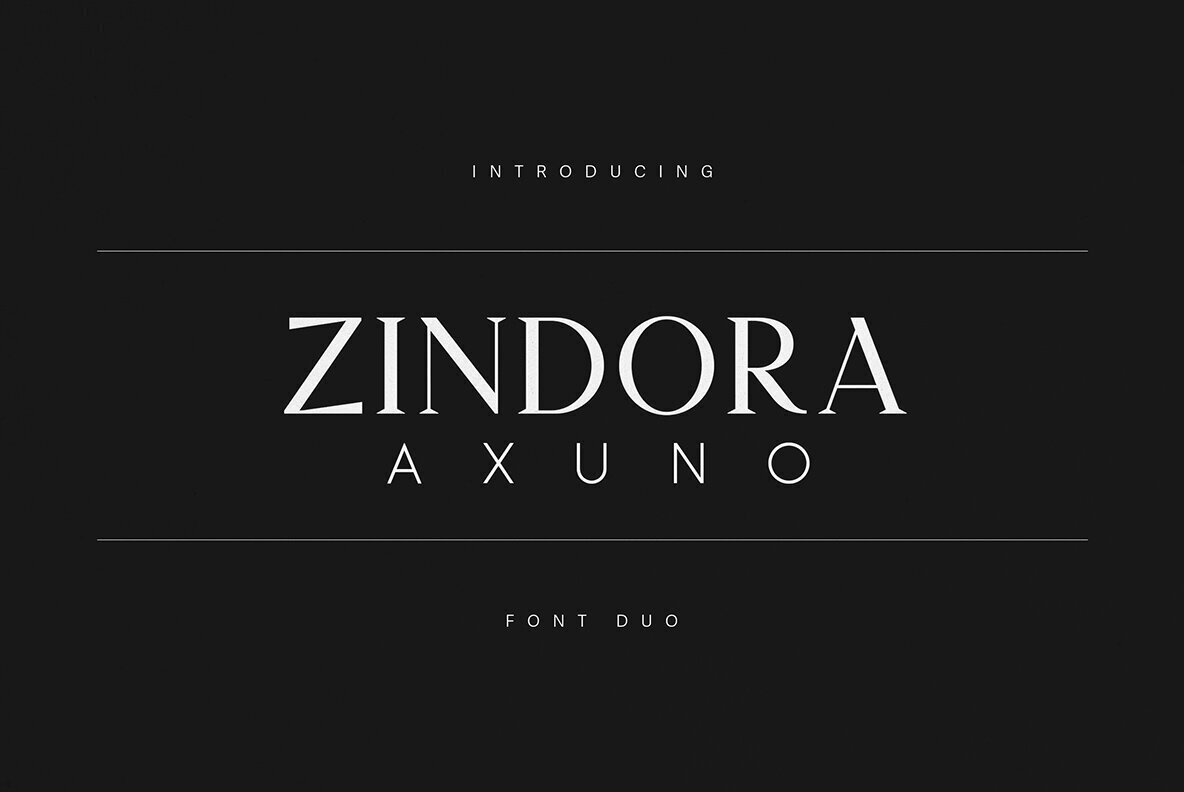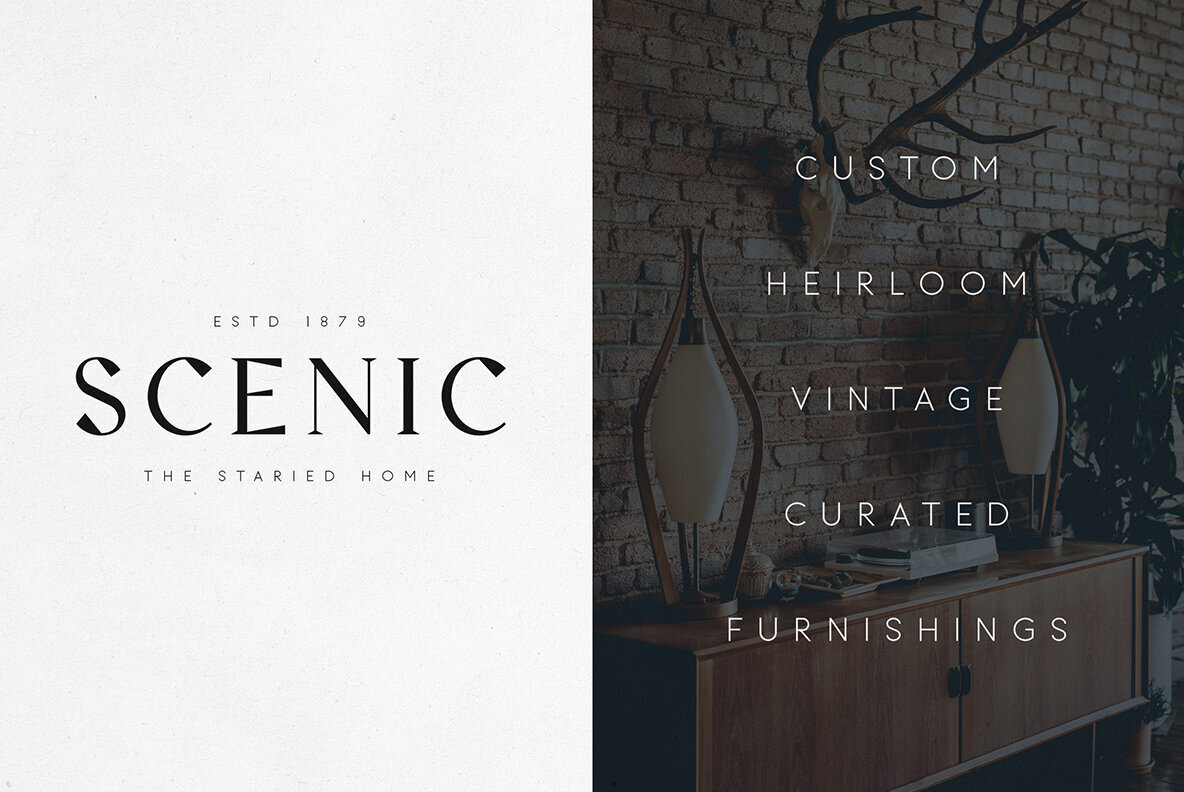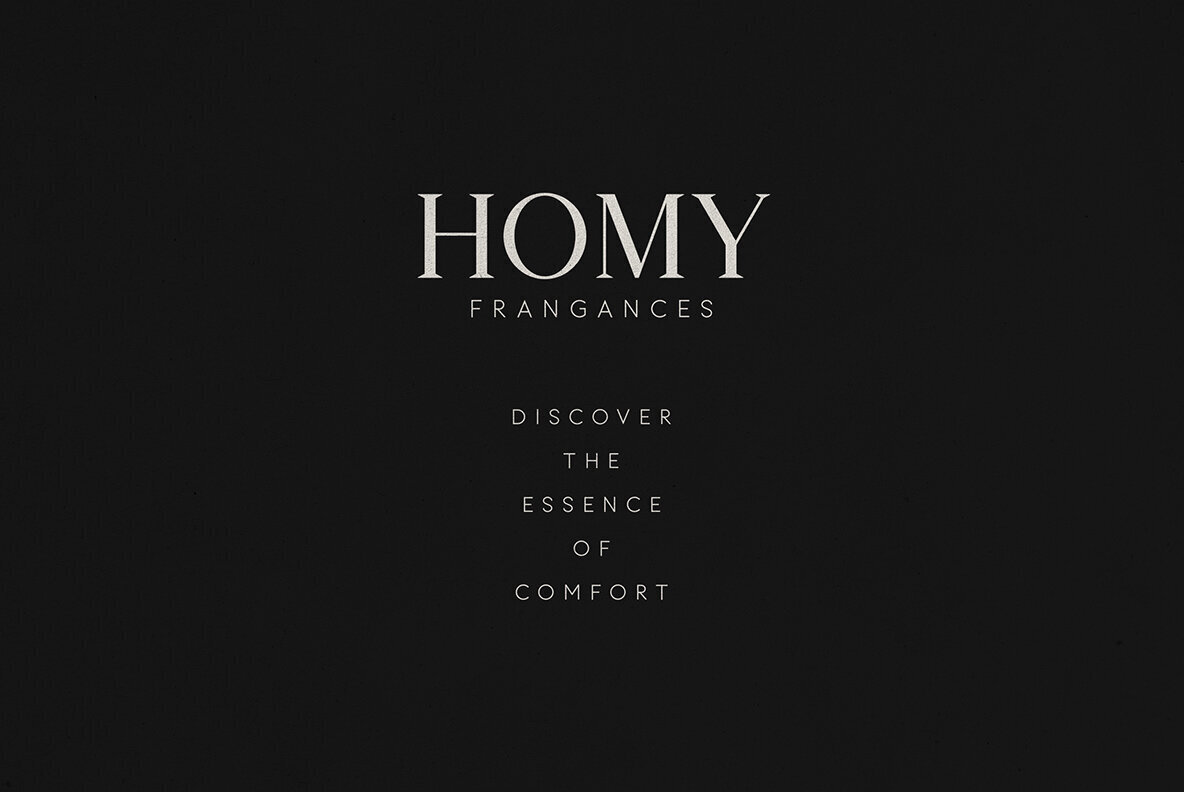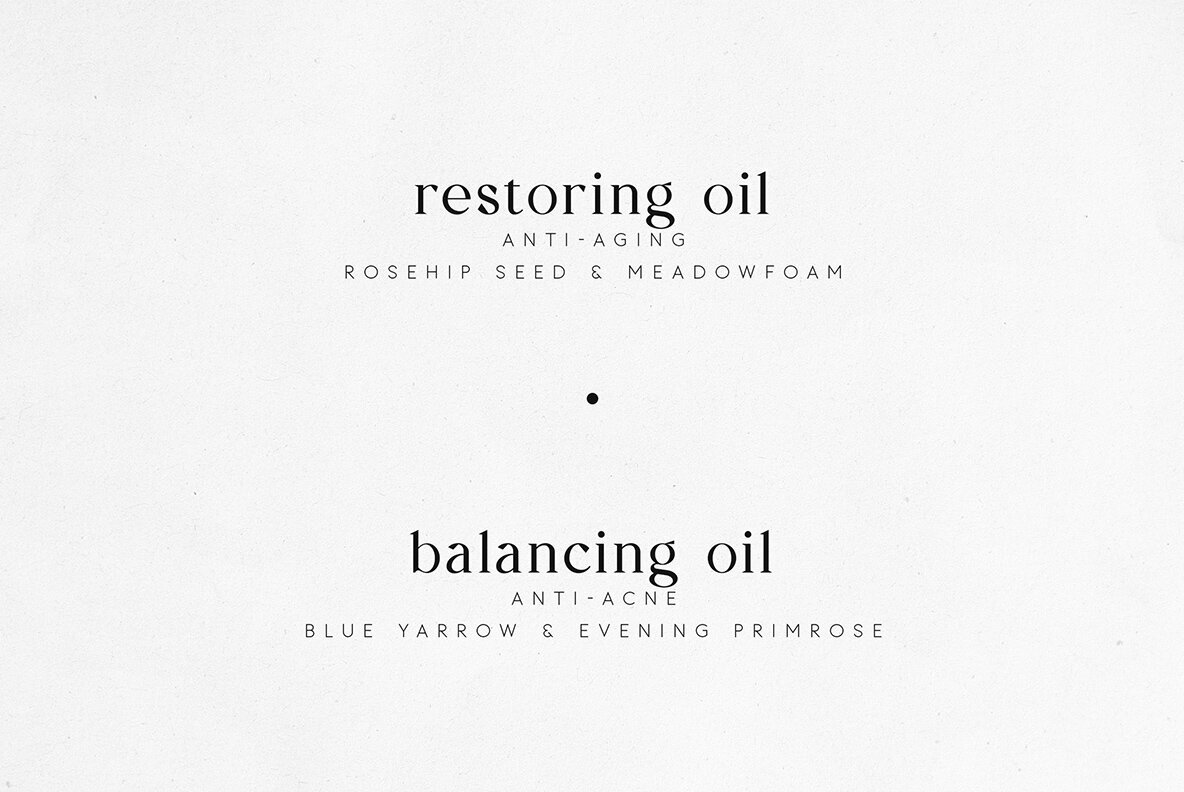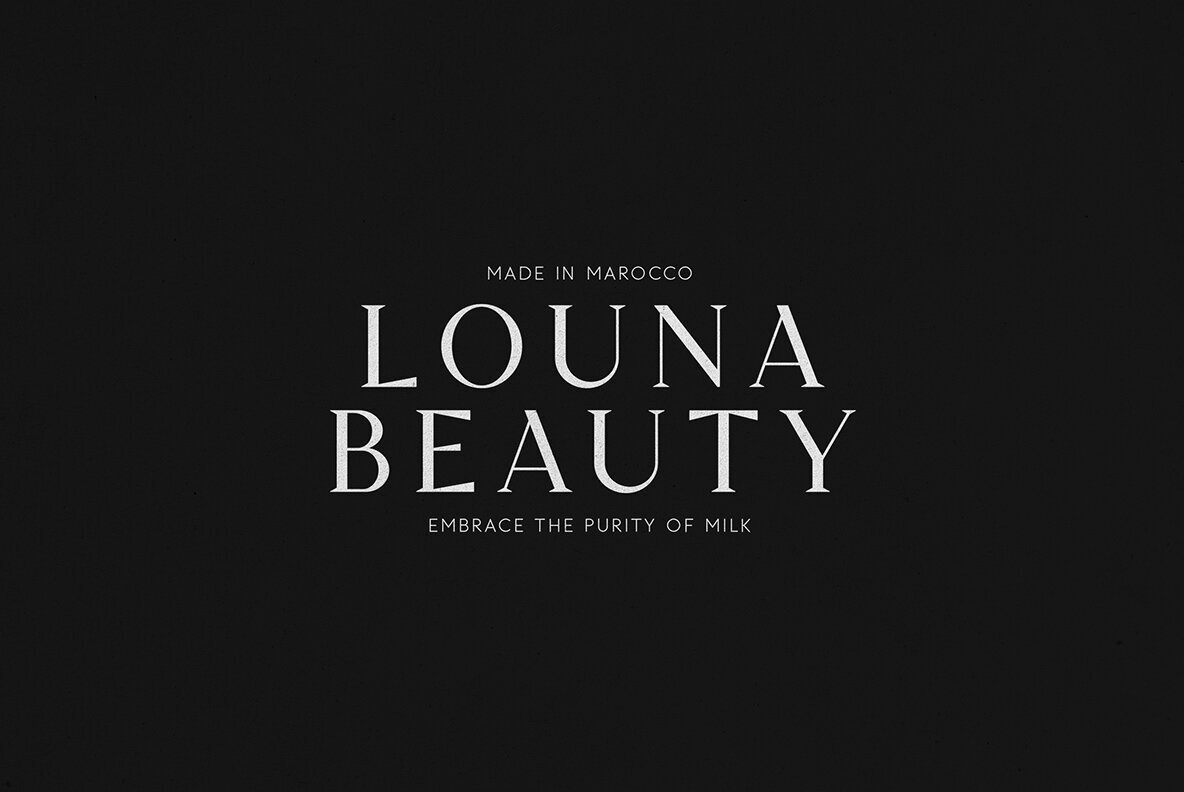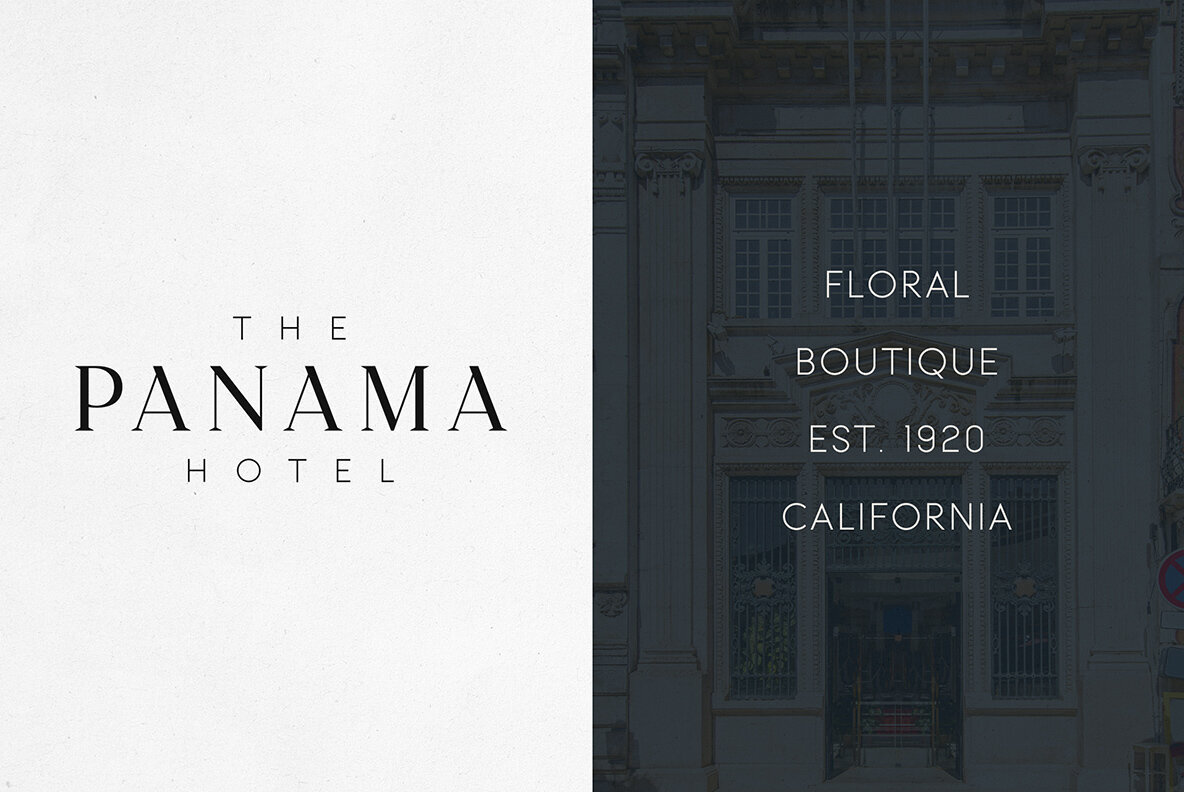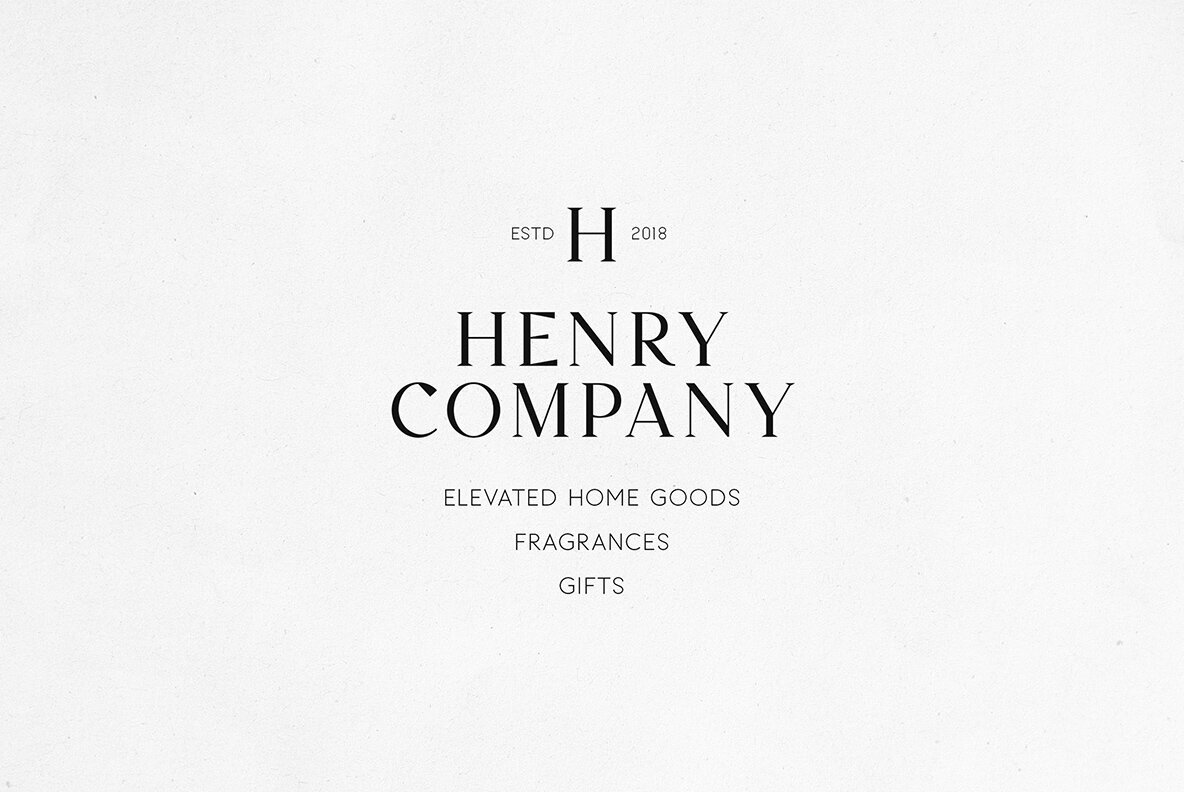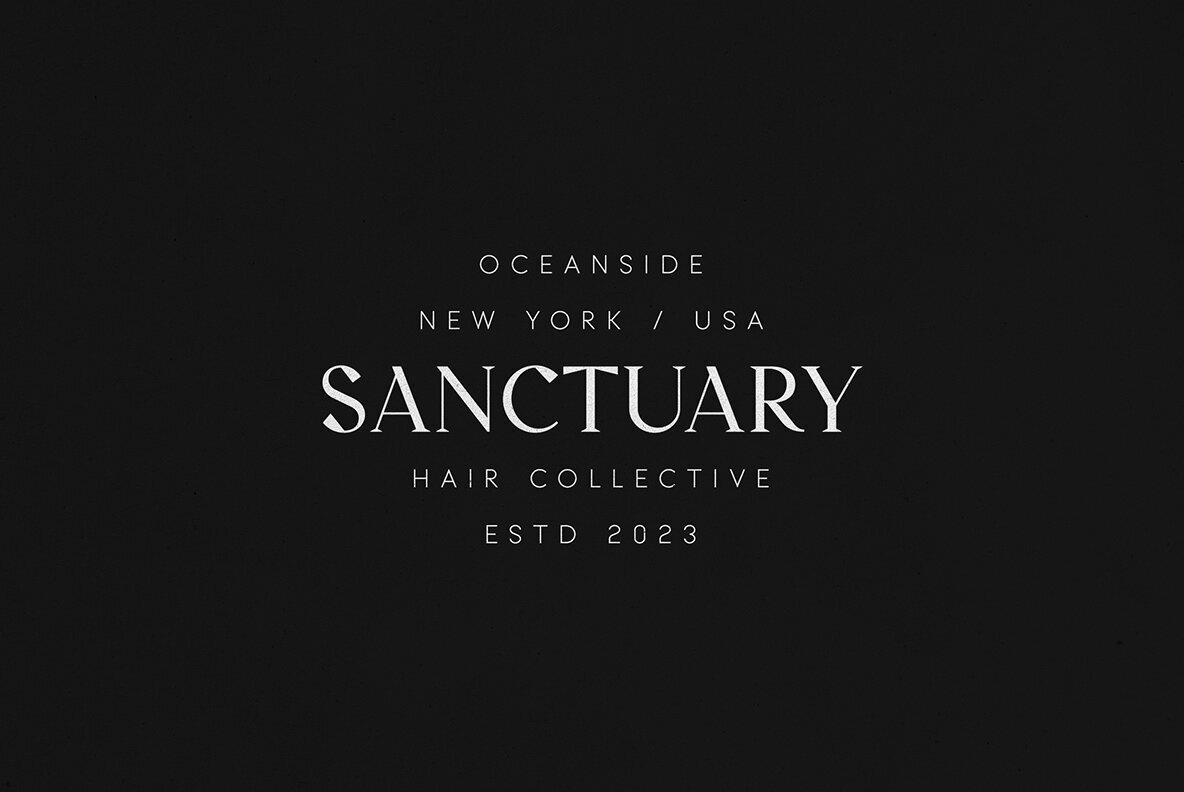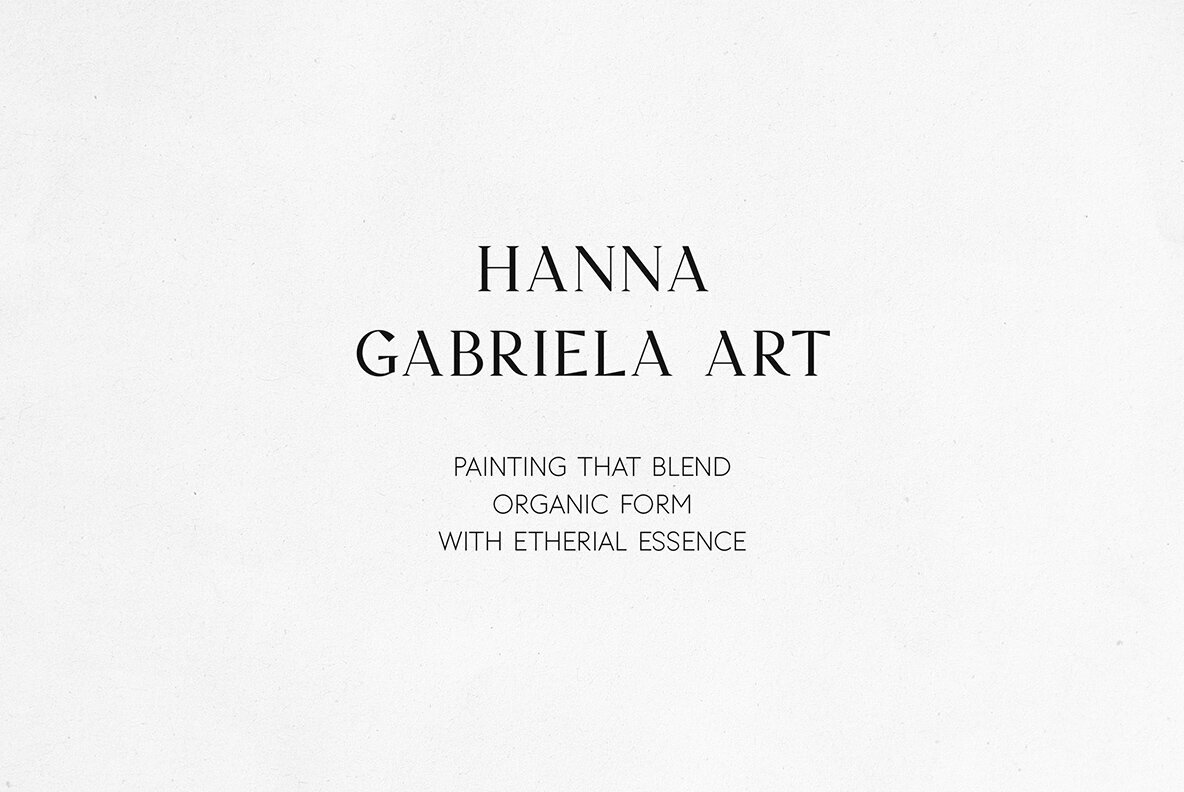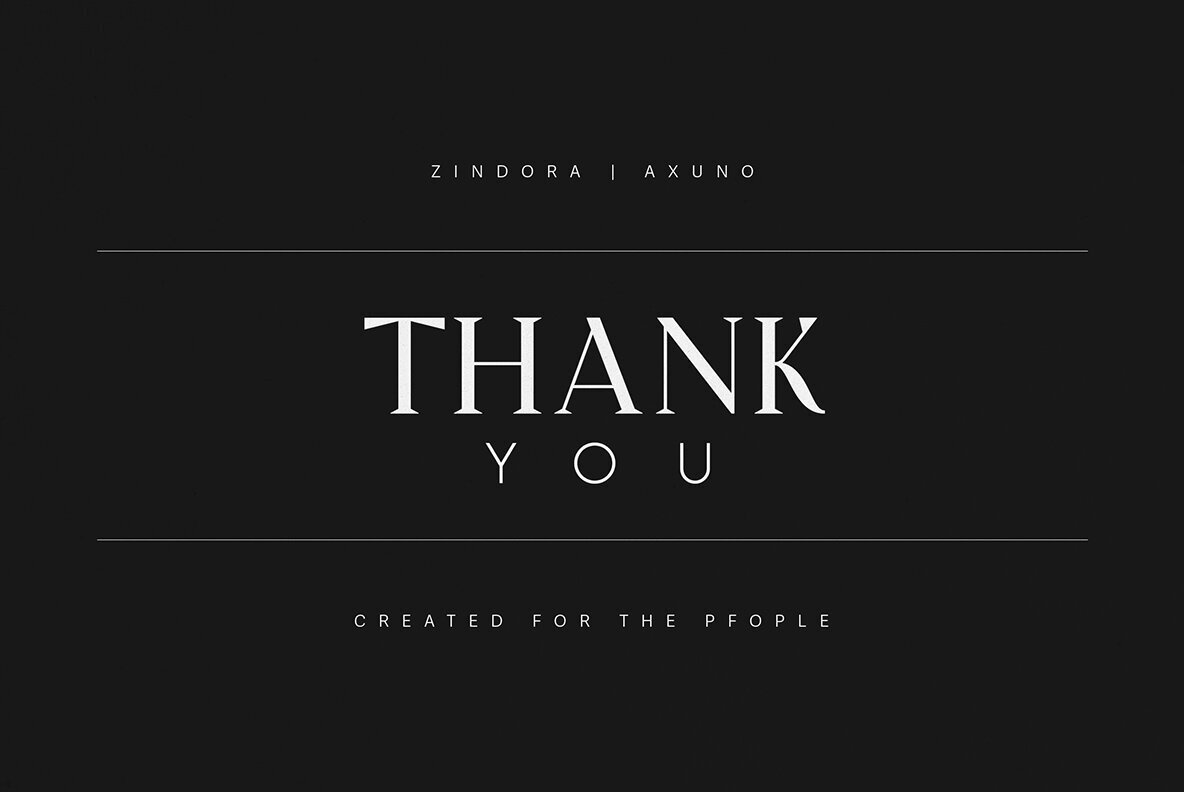
Zindora Axuno Font Duo
Axuno Regular
Zindora
Zindora Axuno is a refined font duo that combines modern elegance with timeless character. Zindora features a high-contrast serif design with delicate details, echoing the sophistication of classic editorial fonts. Axuno brings geometric clarity to the set with a minimalist sans-serif style, providing a balanced aesthetic that suits both contemporary and classic projects. Together, they create a versatile pairing for luxury branding, minimalist websites, and upscale packaging. This duo is tailored for designers working on logos, boutique identity, beauty product packaging, editorial layouts, and fashion labels. Its clean lines and harmonious style add understated prestige to invitations, magazines, and hospitality collateral. Zindora Axuno supports a wide range of languages, making it a practical choice for global projects.Zindora Axuno Font Duo: Serif and Sans-Serif Harmony